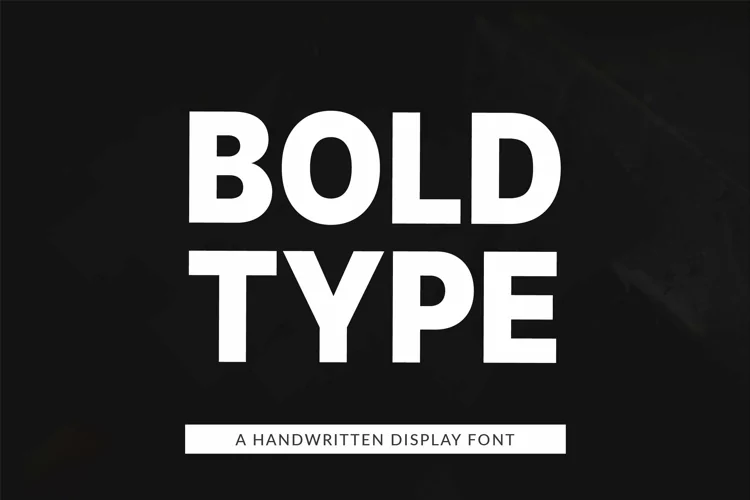
PERFORM GENERIC Font
PERFORM GENERIC Font is designed for maximum visual and emotional impact. It's a bold sans-serif typeface with both uppercase and lowercase letters designed especially for headlines. This font looks very modern when paired with contrasting design colors. This font is made especially for those of you who want to make book covers, brand logos, and anything modern and contemporary. The font is perfect for layout displays, headlines and is basically an automatic logo maker. Download now while it’s on sale, only for a limited time!